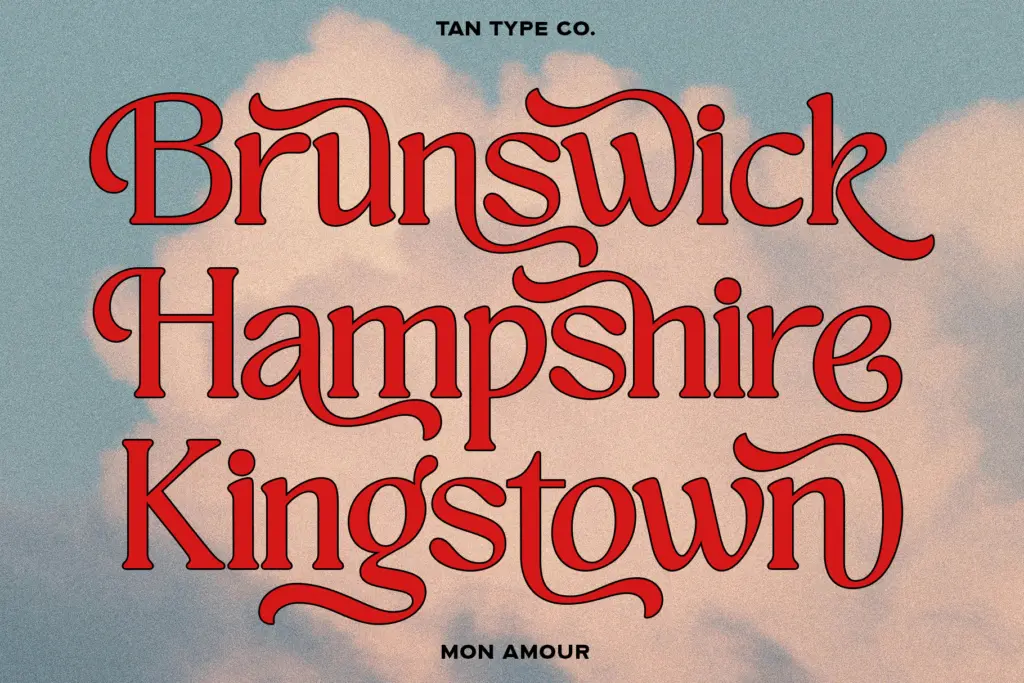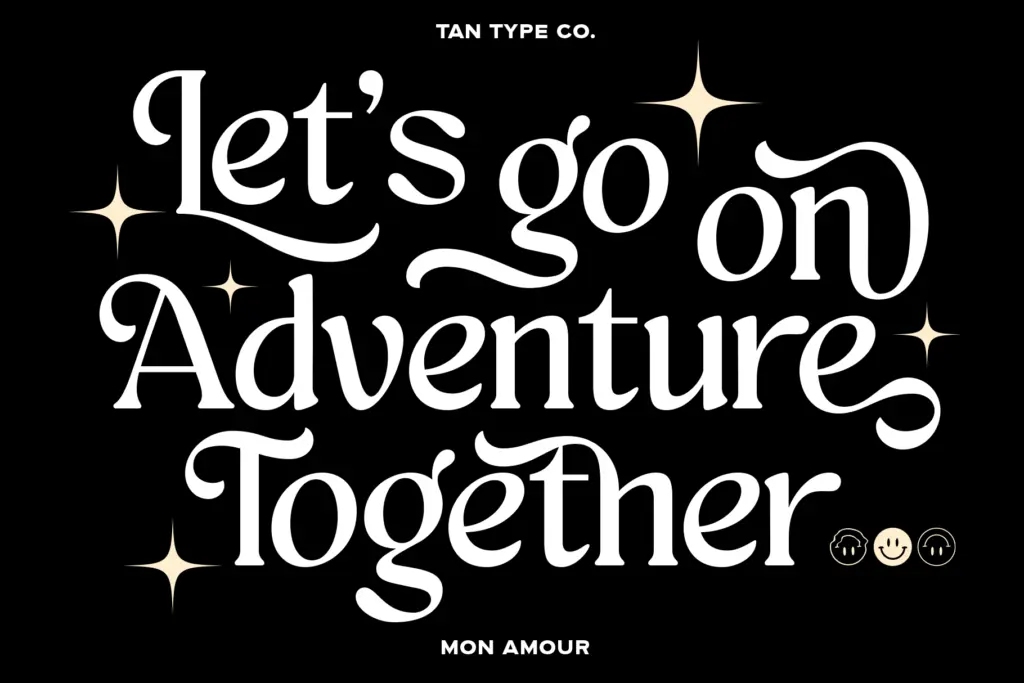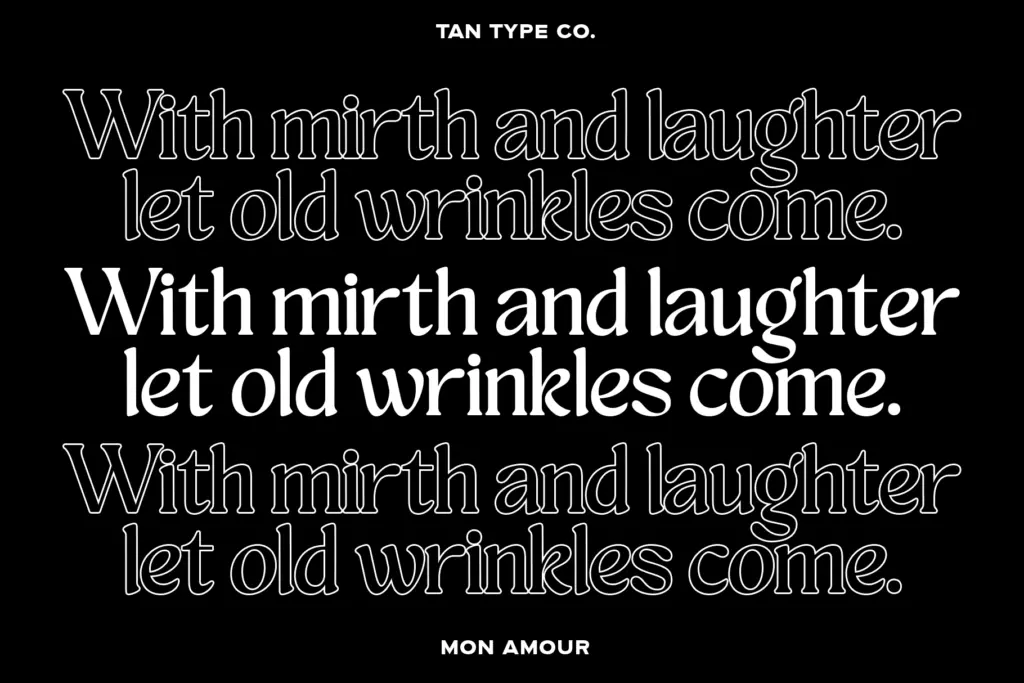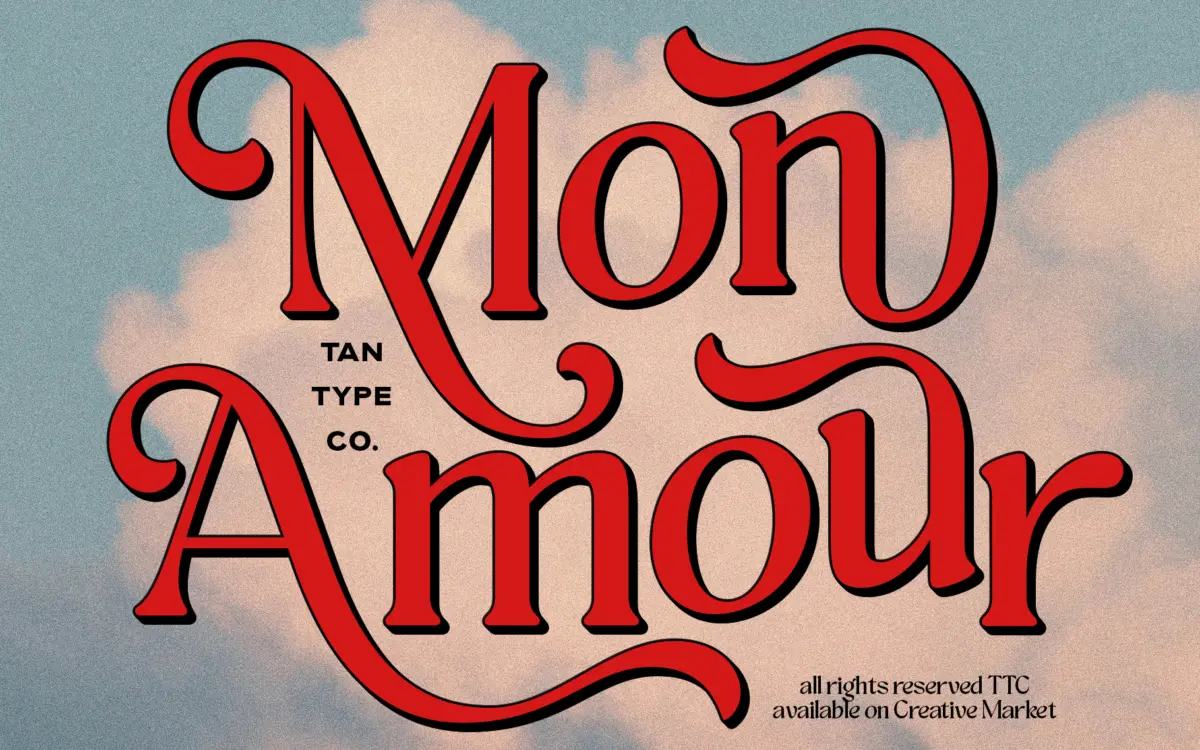
Mon Amour pulls from 70s lettering — the kind of hand-lettered logotype you’d find on a record sleeve or a bag of granola from a co-op that still exists. The strokes are rounded and a little soft at the joins, with curves that swell and taper unevenly rather than following a mechanical formula. That irregularity is the point: it reads as drawn by hand, not built in a vector program, even though of course it was.
The swirls are the signature move. Ascenders and descenders on certain letters loop back on themselves or flick outward, giving the face a groovy, slightly dizzy energy. It’s not restrained, and it isn’t trying to be. Where a lot of retro scripts stop at nostalgic curves, Mon Amour pushes further into playful territory, closer to novelty lettering than to a wedding script. That said, the baseline stays disciplined enough that words don’t wobble apart, which is the usual failure point for scripts this loose.
The font ships with a substantial set of alternate characters and ligatures, accessed through OpenType features. This matters more than it sounds — a script like this lives or dies on whether awkward letter pairs can be smoothed over, and the alternates give you room to swap a swirly capital for a plainer one when a word gets too busy, or vice versa when a headline needs more flourish. Mixing styles within a single word is clearly the intended workflow rather than an afterthought.
The catch is that none of this works without OpenType support. In software that reads the full feature set, Mon Amour is genuinely flexible. In Canva, where advanced OpenType features aren’t supported, you’re left with the default glyphs only — still usable, but noticeably flatter than what the type is built for. Anyone buying this expecting Canva to unlock the alternates will be disappointed, so it’s worth checking your software before committing to a layout that depends on the ligatures.
This is a display face, not a text face, and it knows it. It’s built for short bursts: a product name on packaging, a logo lockup, a poster headline, a section title in an editorial spread with a retro theme. At body-copy sizes the swirls and irregular baseline would fight the reader; at a few words set large, they’re charming rather than tiring.
It suits brands leaning into warmth and nostalgia — cafés, natural food packaging, vintage-revival fashion, event posters that want a groovy rather than formal tone. It’s less suited to anything that needs a straight-laced, corporate register, or to long-form editorial work where a script this animated would wear out its welcome. Pair it with a plain sans or slab for supporting text; Mon Amour should do the talking in headlines and let quieter type handle the rest.
- Extensive alternates and ligatures let you vary the mood of individual words
- Rounded, hand-drawn curves give it a genuinely warm, nostalgic feel
- Baseline stays controlled enough to keep loose swirls legible in short phrases
- Loses most of its character in software without full OpenType support, including Canva
- Too animated and irregular for body text or long-form use
Mon Amour is a confident, groovy retro script with real personality in its swirls and alternates. It's built for short, punchy display use, not paragraphs, and it needs full OpenType support to show what it can actually do. Best suited to vintage-leaning branding and packaging rather than anything formal or text-heavy.